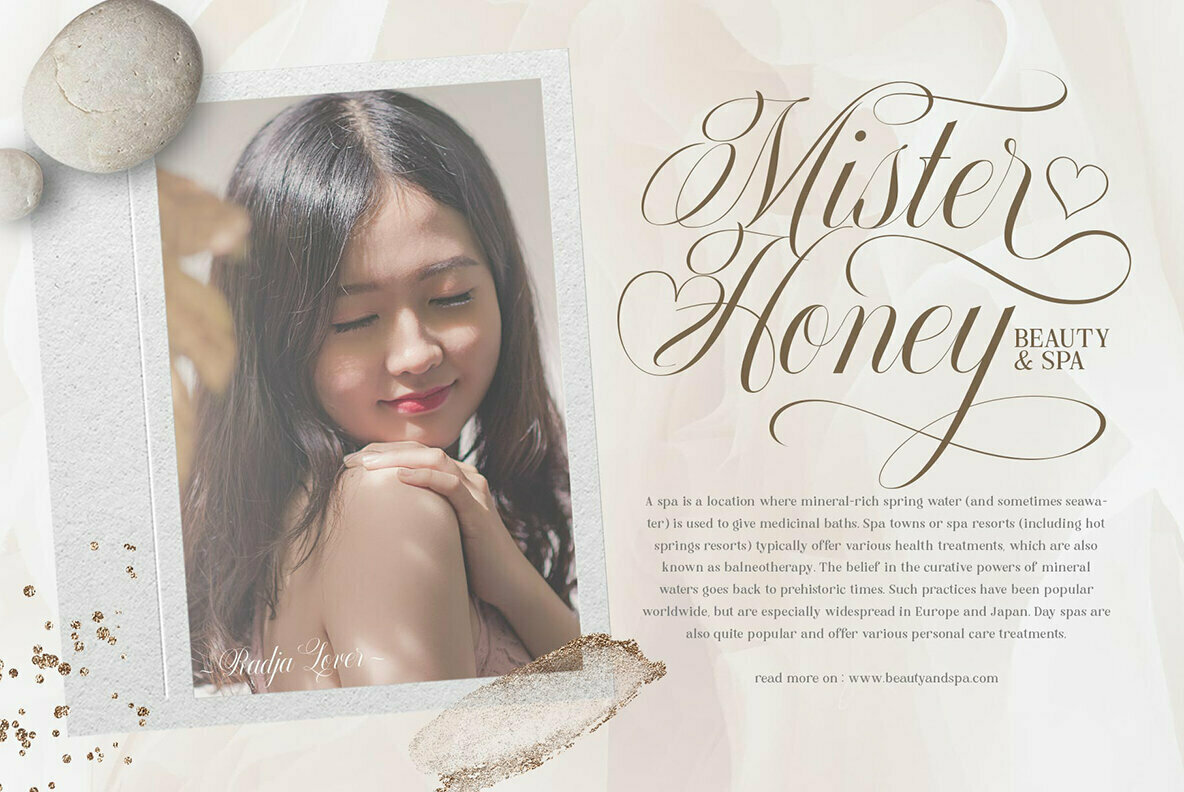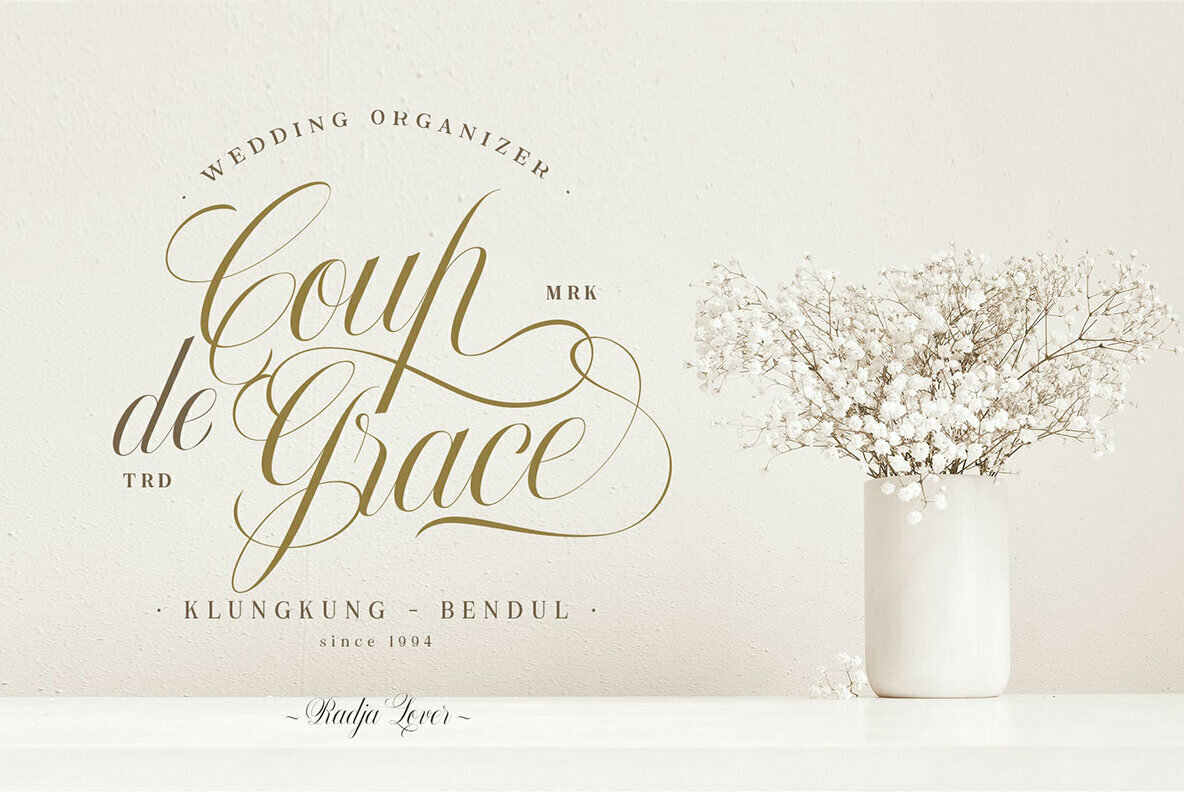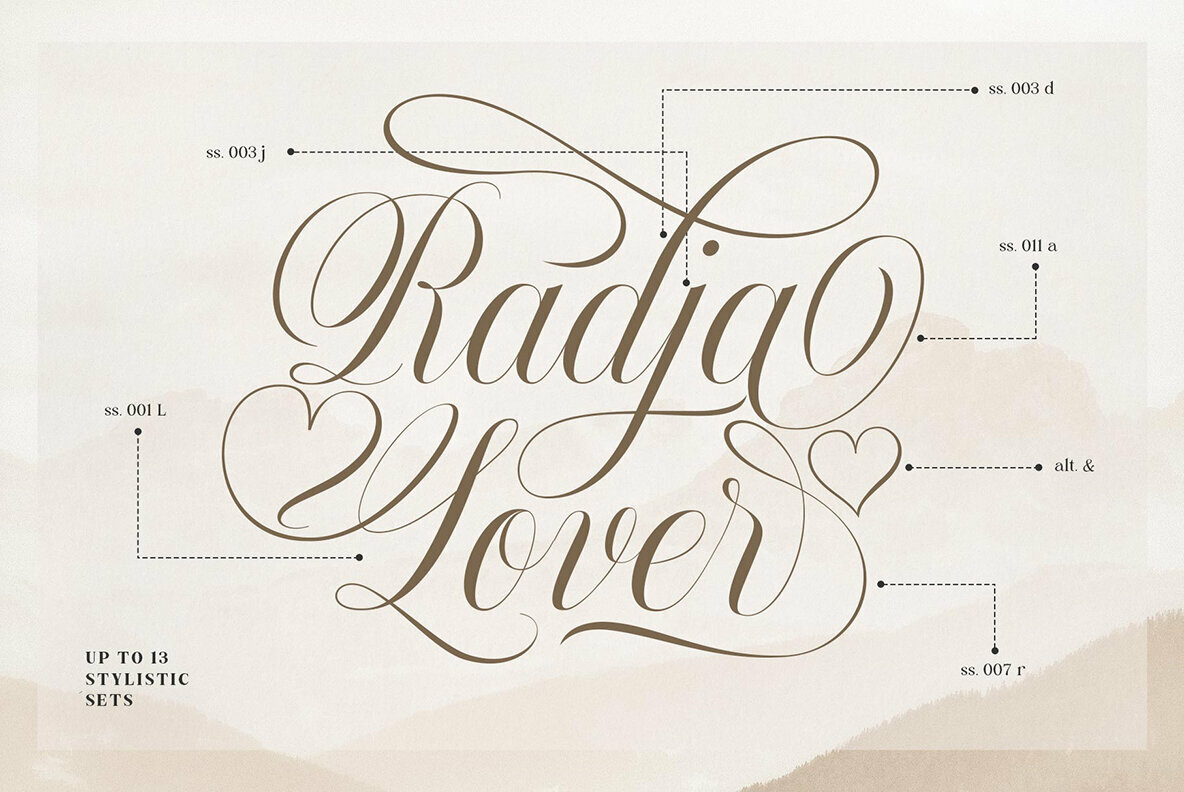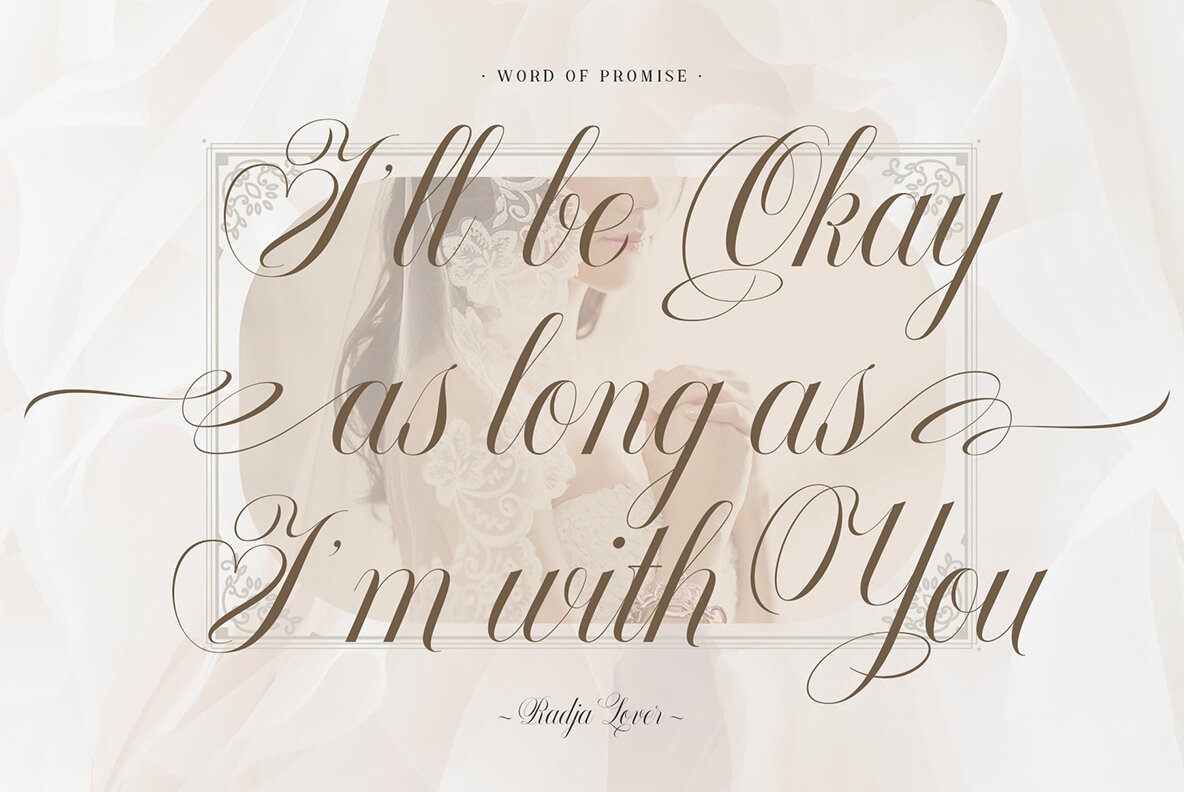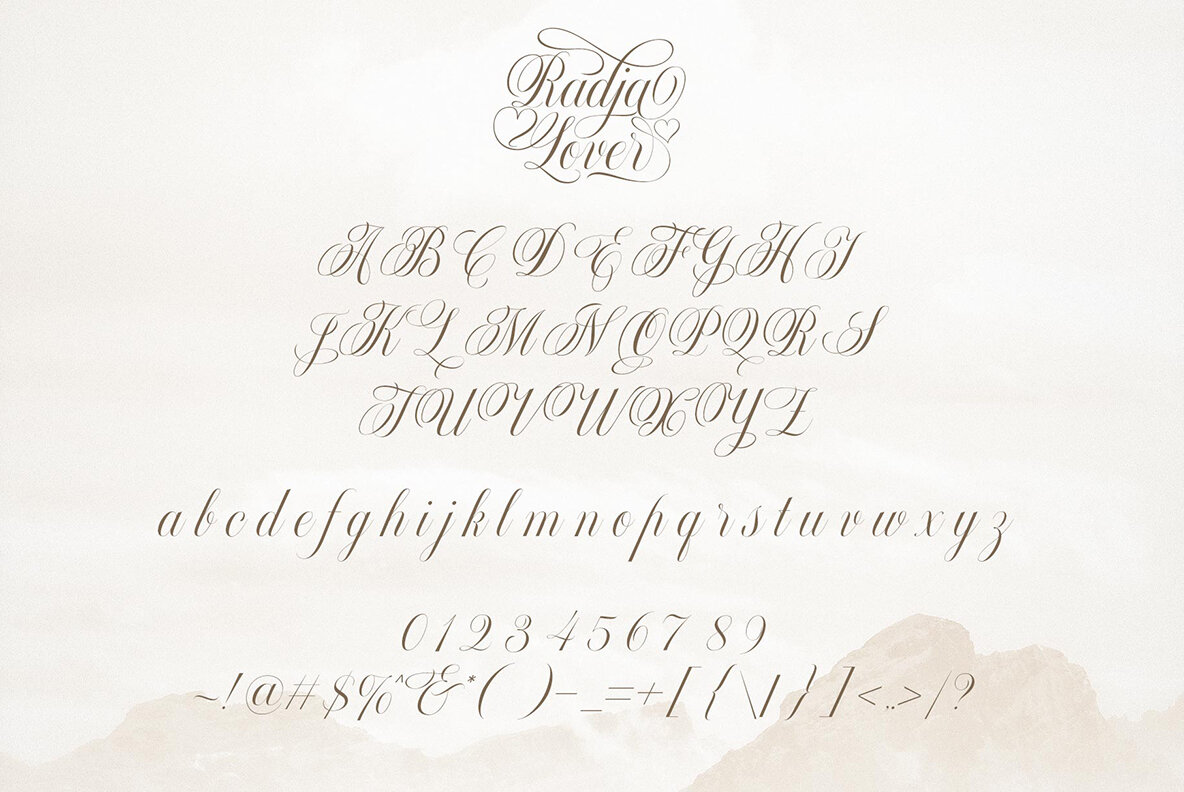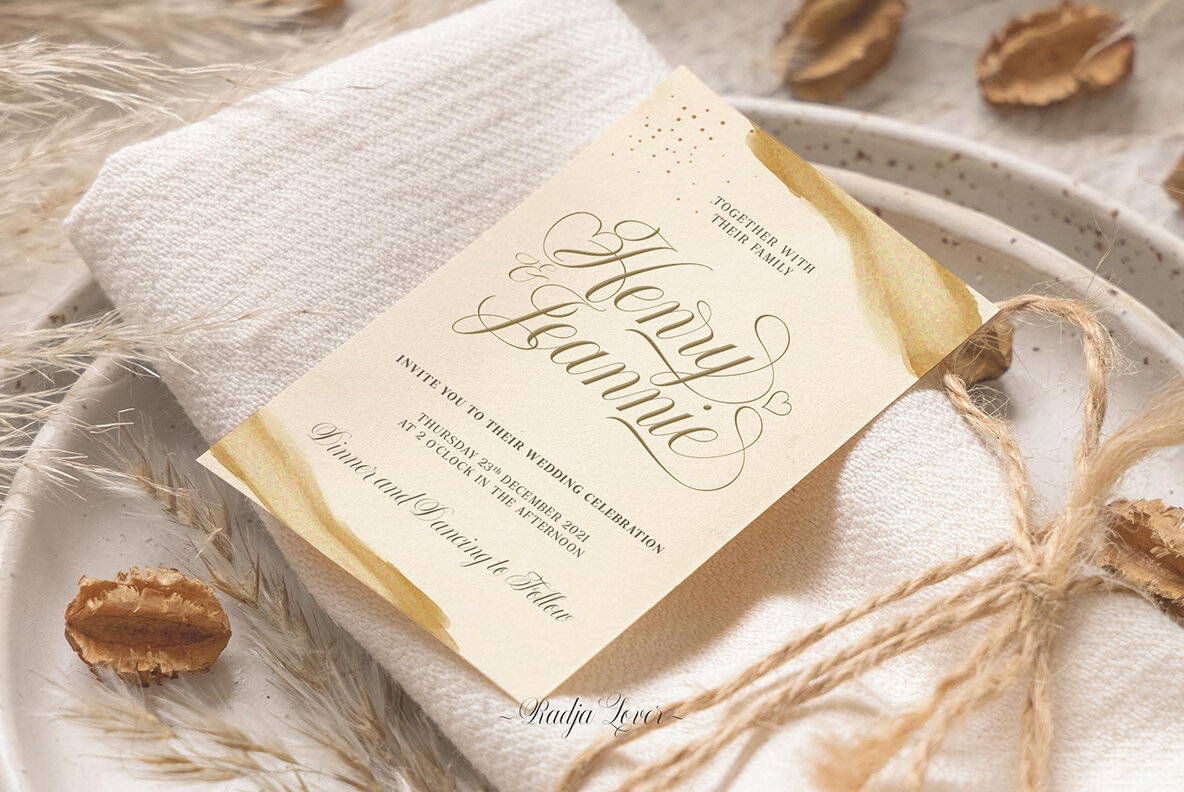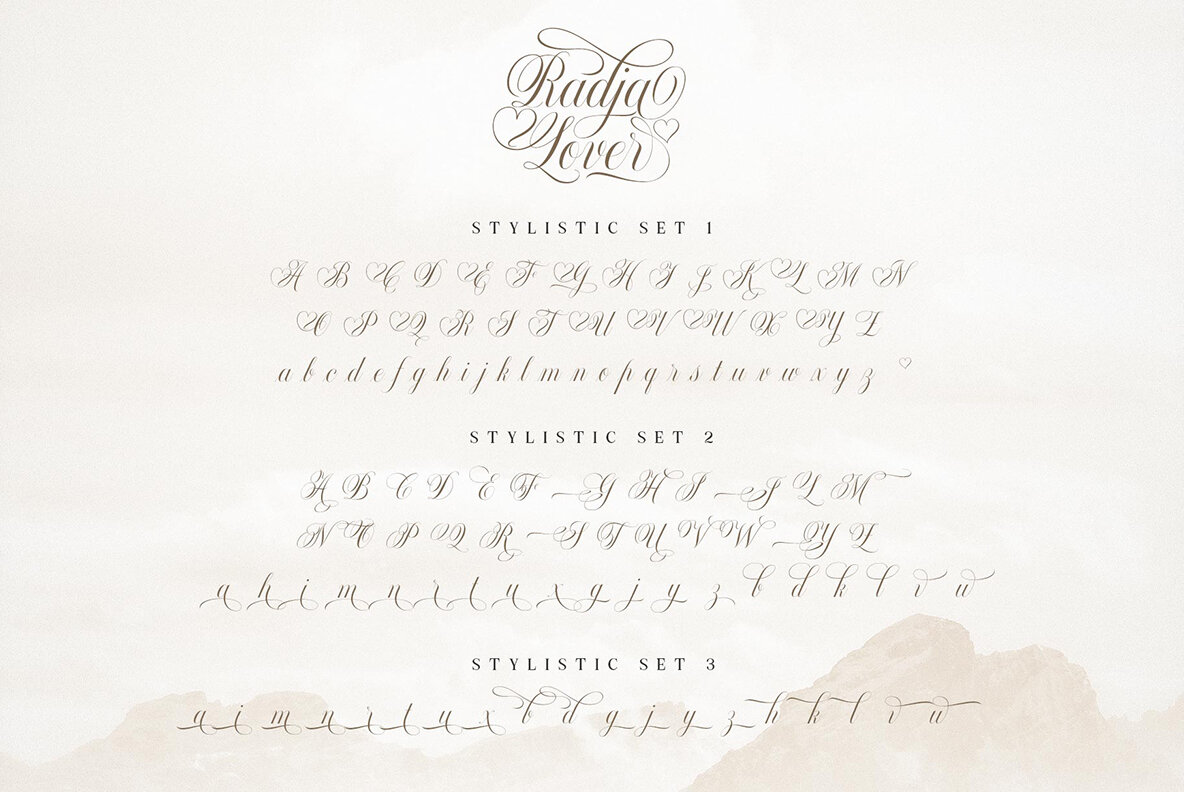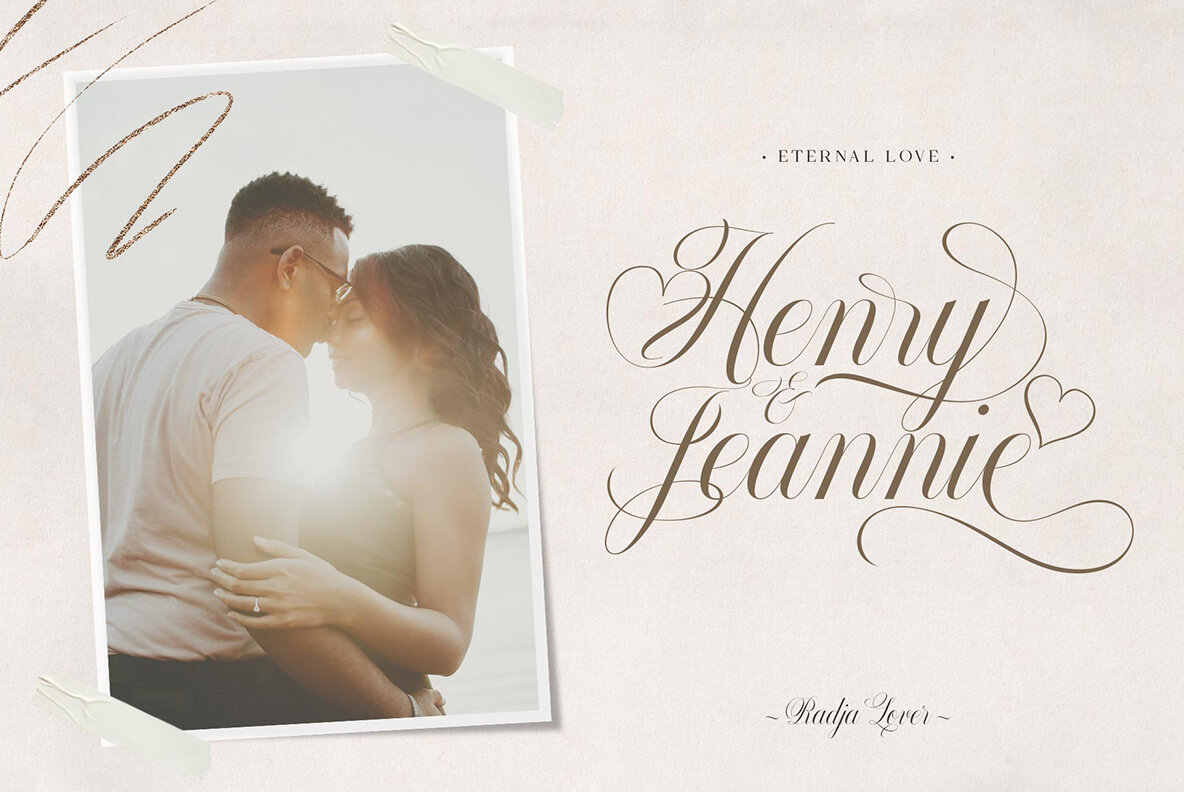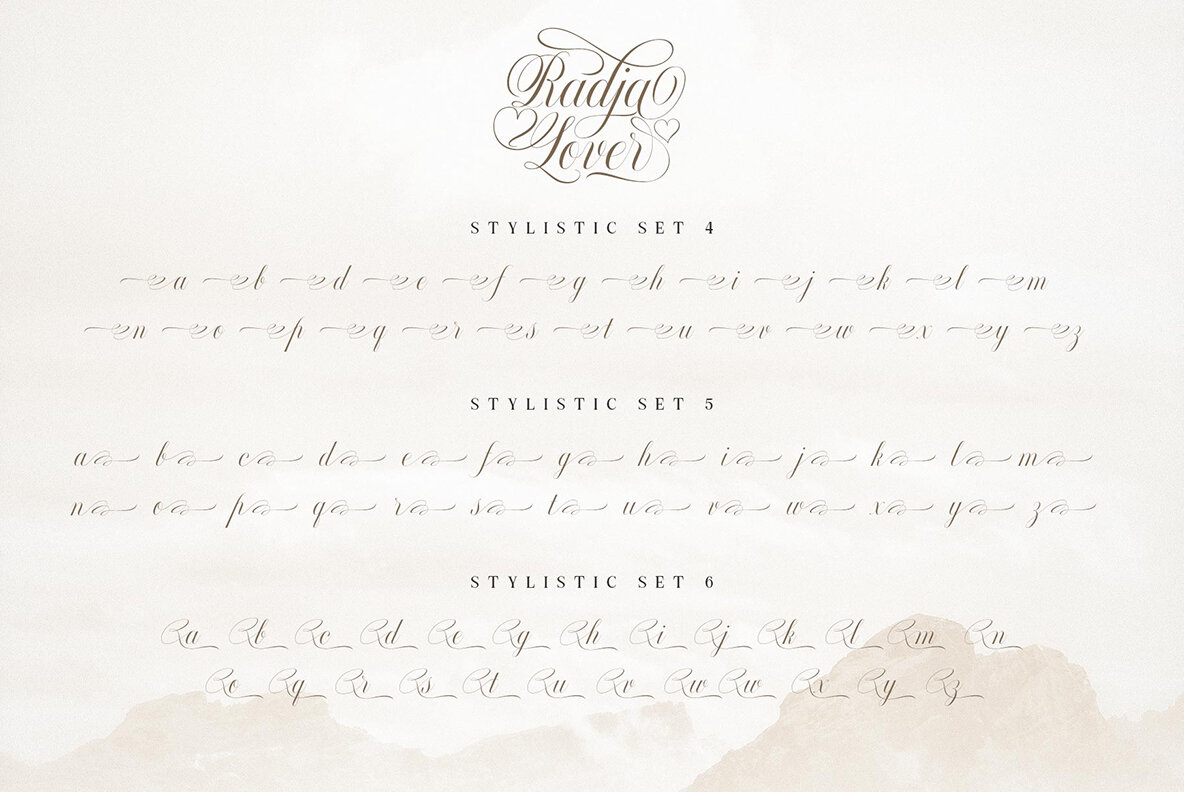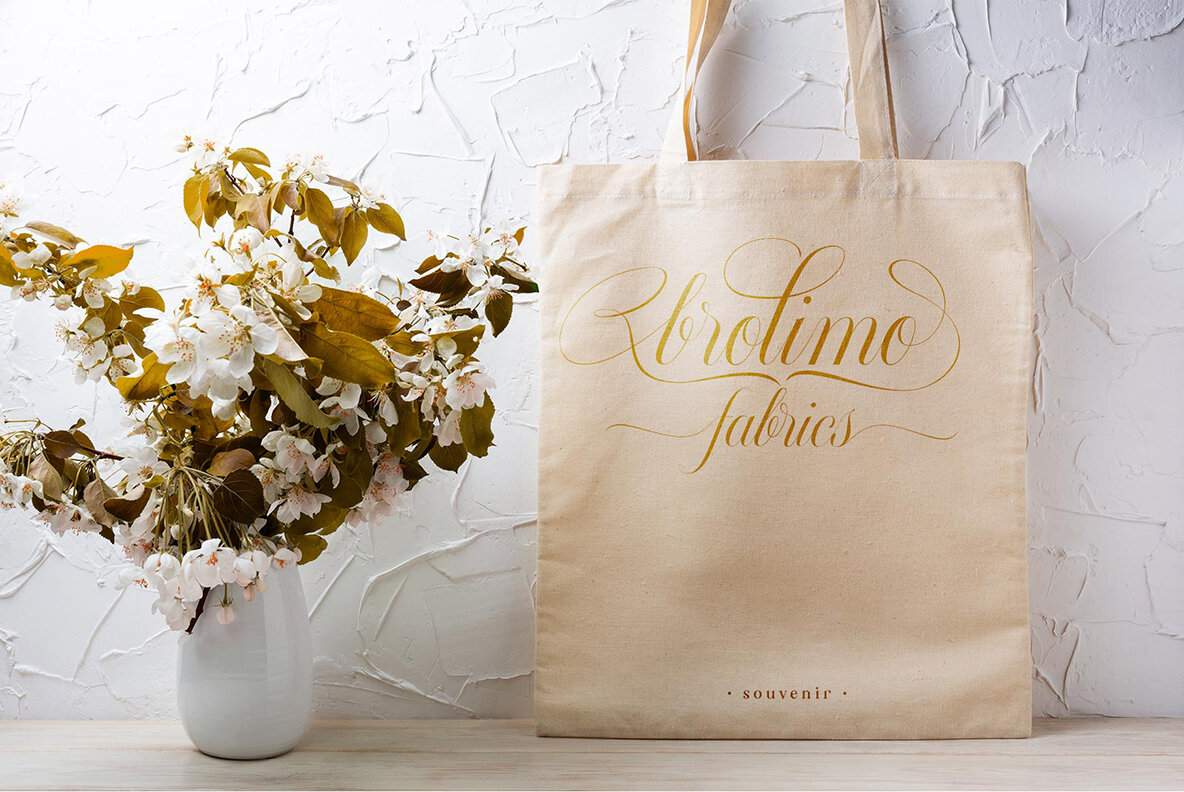
Radja Lover Font
Radja Lover Regular
Capture the essence of love with the Radja Lover Script Font, a typeface inspired by the romance of Valentine's Day. This font combines simplicity and elegance, offering a modern script style with a distinctive heart-shaped swash, perfect for creating unique and heartfelt designs. Radja Lover is ideally suited for greeting card designs, social media posts, logo creations, wedding texts, and romantic quotes, with its primary emphasis being love. The font's design is both versatile and user-friendly, making it accessible for use in various applications and software.Radja Lover: A Heartfelt Script for Romantic Designs